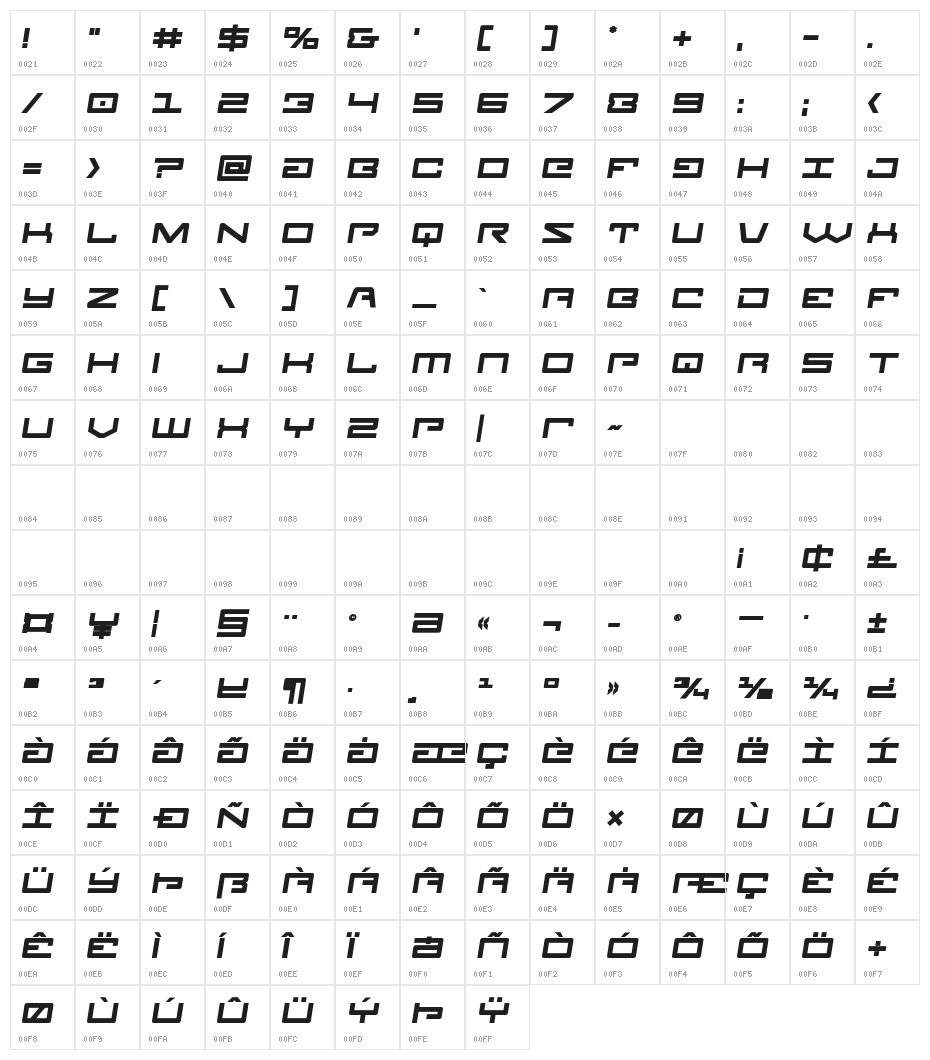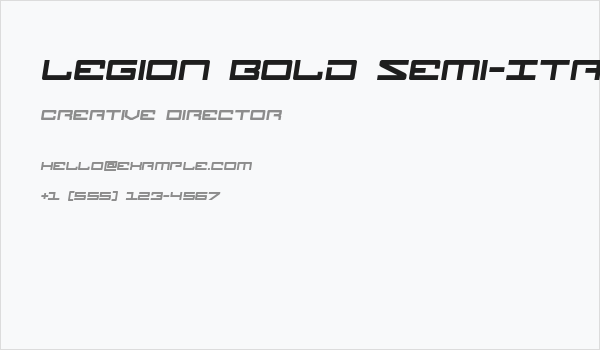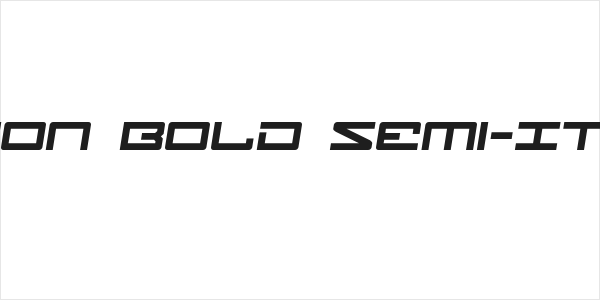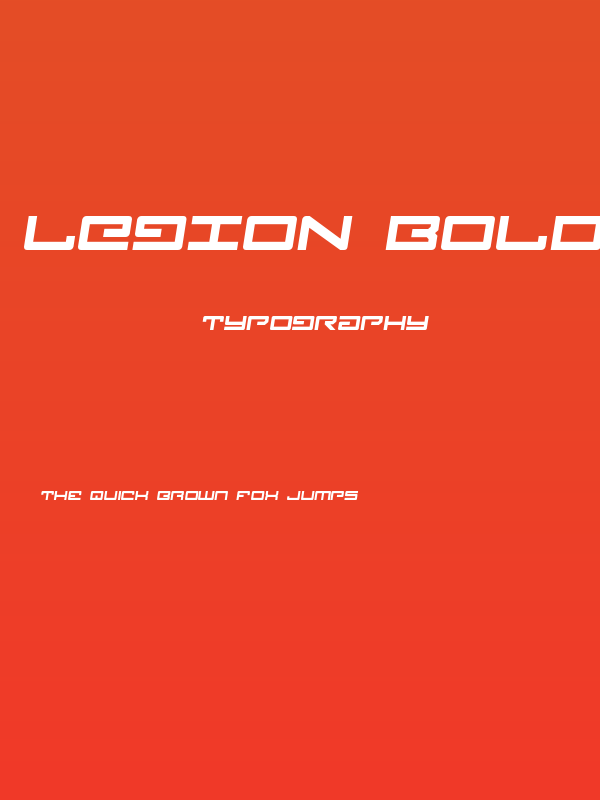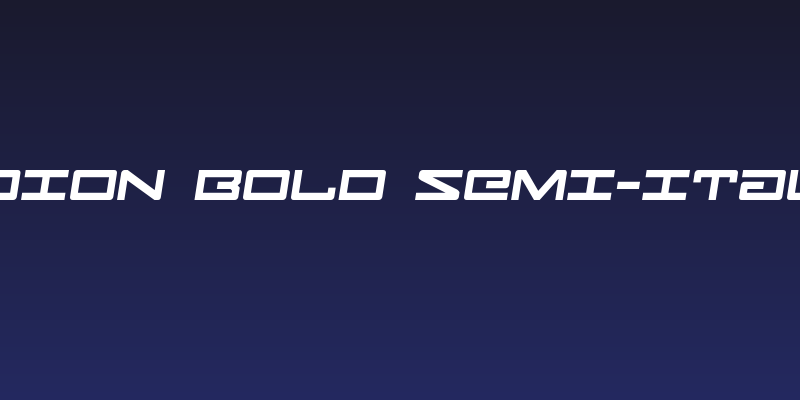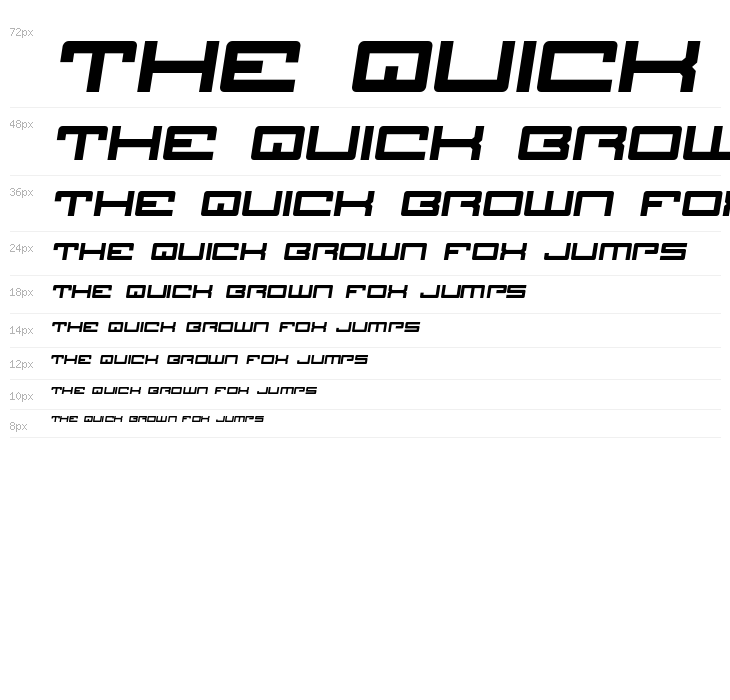
Legion Bold Semi-Italic Font
Legion Bold Semi-Italic Description
This font features a bold and semi-italic style with a futuristic and geometric design. The characters are slightly slanted, giving them a dynamic and forward-moving appearance. The strokes are thick and consistent, providing a strong visual impact. The angular shapes and sharp edges contribute to a modern and tech-inspired aesthetic. The font maintains a uniform width across all characters, ensuring a cohesive look. It is well-suited for projects that require a bold and assertive typeface, such as technology branding, sports team logos, or sci-fi themed designs.
| Proposed Projects | Ideal for technology branding, sports logos, sci-fi themes, and dynamic headlines. |